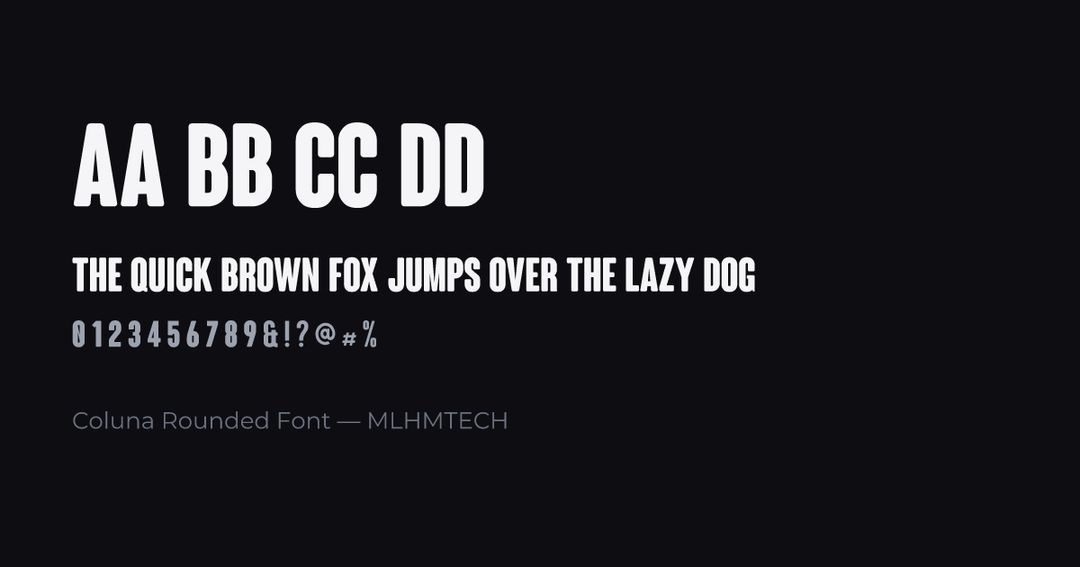
Coluna Rounded Font
Coluna Rounded is a modern, rounded sans-serif font that adds a friendly and clean touch to your designs. Perfect for titles, logos, and branding.
Coluna Rounded is a versatile font with soft, rounded edges that give it a friendly and approachable feel. Its clean lines and modern proportions make it ideal for a wide range of creative projects, from video titles and thumbnails to logos and social media graphics.
The font includes multiple weights and styles, allowing you to create visual hierarchy and emphasis. Its legibility at various sizes ensures it works well in both large display settings and smaller body text.
Whether you're a video editor looking for a distinctive title font or a designer crafting a brand identity, Coluna Rounded offers a contemporary aesthetic that stands out while remaining professional.